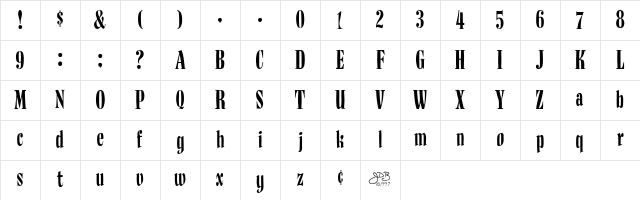
BudNull Medium
Design Context for BudNull
BudNull is a composed and adaptable typeface that performs quietly and consistently across a wide range of design contexts.